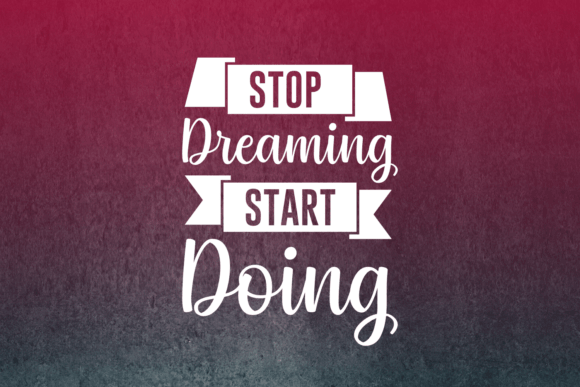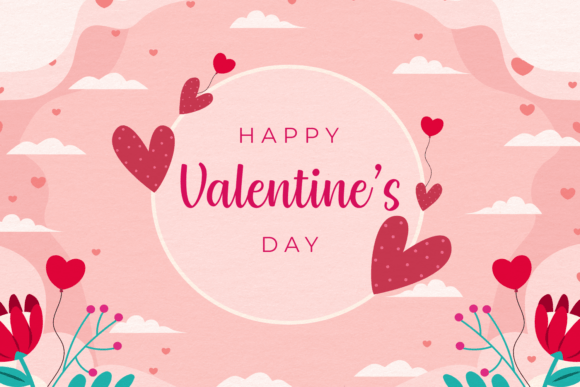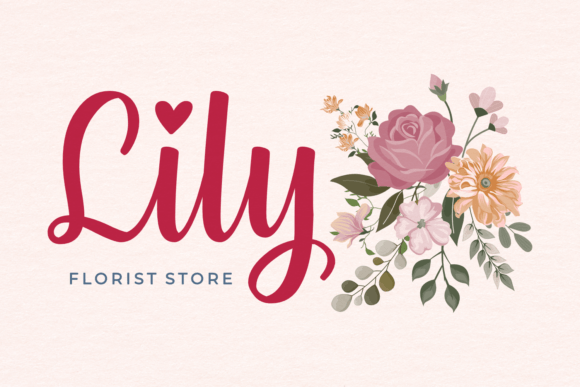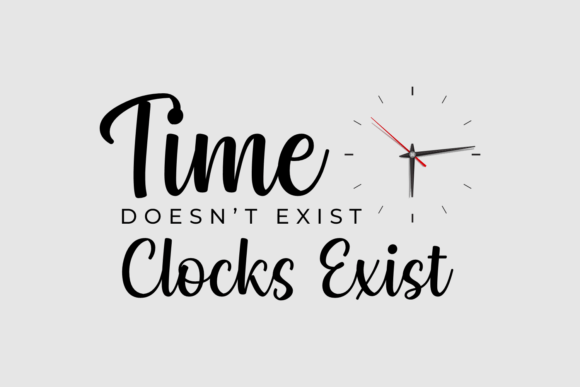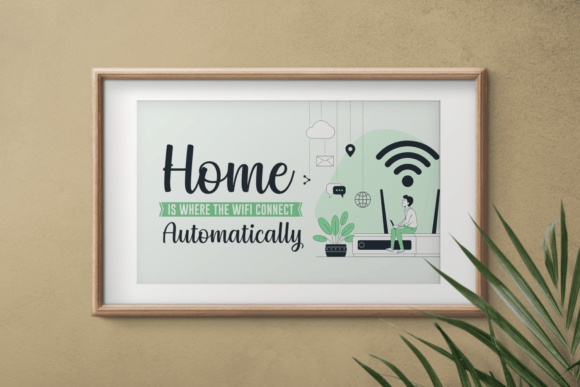
Introduction to Keep Doing Font
Have you ever stared at a blank page, waiting for the perfect idea to strike? For designers, those moments can be both exhilarating and daunting. But what if you had the right tool to spark your creativity and bring your vision to life? Enter the Keep Doing Font, a clean, relaxed, and friendly handwritten font that’s perfect for a wide variety of designs.
Whether you’re working on a creative project with a transparent background or a high-quality design that needs a touch of personality, the Keep Doing Font has got you covered. With its neat and simple style, it’s no wonder why this font has become a go-to choice for many designers. And the best part? It’s PUA encoded, making it easy to access all the amazing glyphs and ligatures you need to take your design to the next level.
Key Features of Keep Doing Font
- Unique Typography: The Keep Doing Font is designed to evoke motivation and encouragement, making it perfect for creative projects that require a boost of energy.
- High-Quality Design: This font is crafted with precision and care, resulting in a crisp and clear design that is ideal for any design resource.
Honest Review: Keep Doing Font
I recently stumbled upon the Keep Doing Font and I must say, it’s been a game-changer for my creative projects. The font is a great addition to any design resource, offering a unique and stylish look that’s sure to elevate your work.
What works well: ✨ The font is incredibly versatile, suitable for a wide range of creative projects, from digital art to print materials. The high quality design ensures that the font looks great on any background, even when using a transparent background. The free download option is also a major plus, making it accessible to designers of all levels.
The font comes in a range of styles, from casual to formal, allowing you to choose the perfect tone for your project. I’ve found the font to be particularly useful for headings and titles, where it really shines.
Limitations: ⚠️ While the font is generally high quality, I have noticed some issues with the font’s consistency across different font sizes. In some cases, the font may appear slightly distorted or fuzzy, especially when used in large quantities.
Overall, I’m very impressed with the Keep Doing Font. Its unique style, versatility, and high quality design make it a valuable addition to any design resource. While it may have some limitations, I believe the benefits far outweigh the drawbacks.
- Unique and stylish design
- High quality and versatile
- Wide range of styles
- Great for headings and titles
Keep Doing Font
Tips for Getting the Most Out of Keep Doing Font
Experiment with different font sizes and styles to create a visually appealing design. Use the font in combination with other design elements, such as images and graphics, to add depth and interest to your creative project.